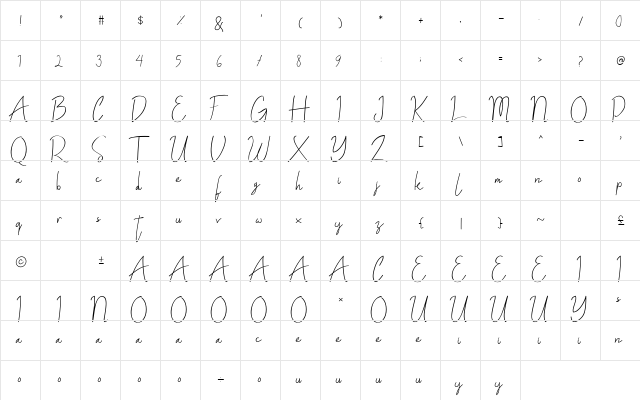
ALDITH Script
| Style | Script |
| Foundry | Edric Studio |
| Designer | Aghnia |
Design Context for ALDITH Typeface
ALDITH flows with the natural rhythm of handwritten lettering, making it ideal for designs that call for warmth and personal expression.